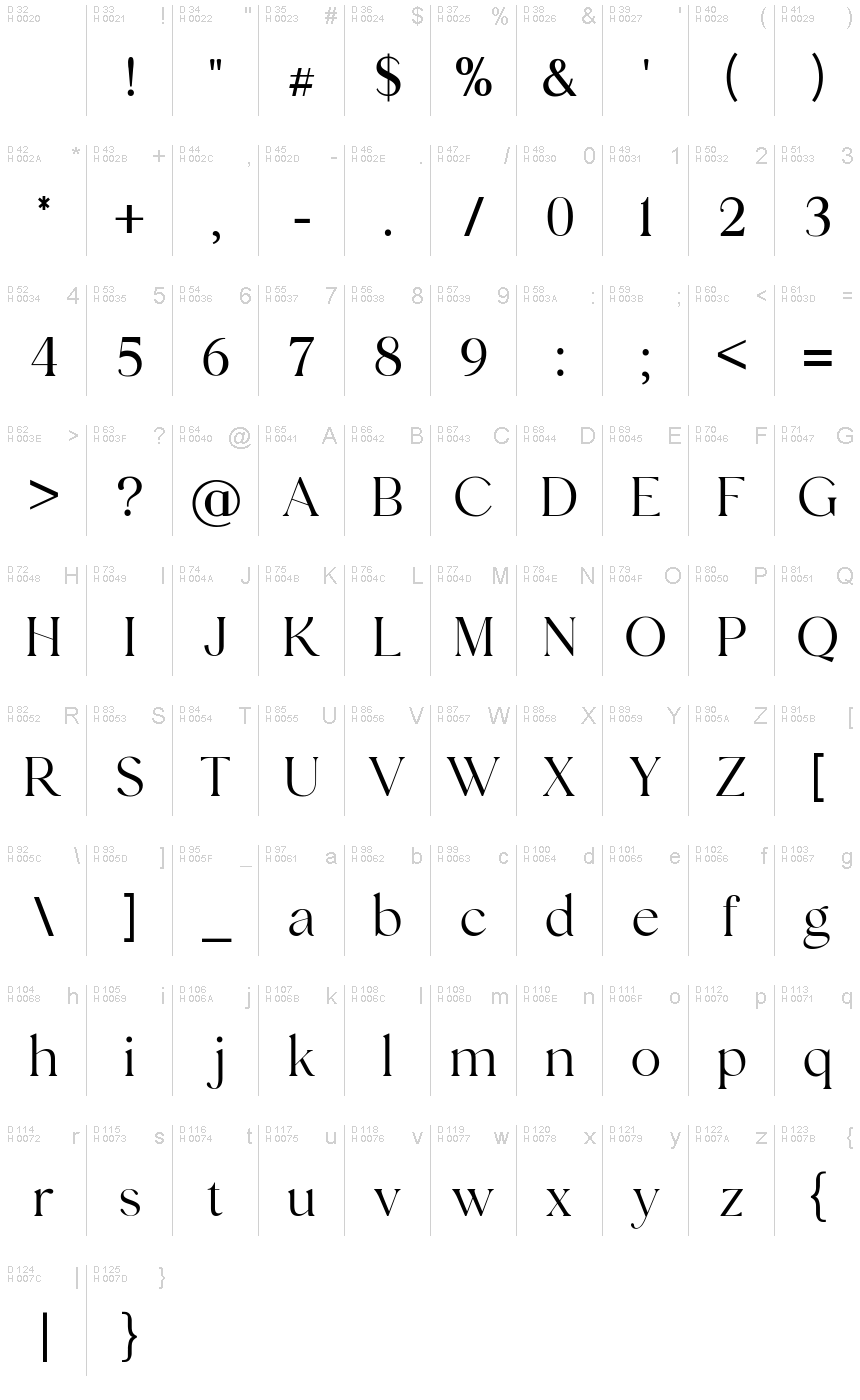
BernadineAleyshia
Bernadine Aleyshia, a captivating serif font crafted by UI Creative, exudes a timeless elegance with its refined strokes and graceful curves. This font's distinctive character emanates a sense of sophistication, inviting the viewer to immerse themselves in its harmonious balance of tradition and modernity. Bernadine Aleyshia's intricate details and subtle variations lend themselves to a range of design applications, from high-end editorial pieces to luxurious branding initiatives.
The versatility of Bernadine Aleyshia makes it a versatile choice for designers seeking to elevate their projects with a touch of refined sophistication. Its legibility and versatility make it a suitable option for body text in literary works, while its elegant flair lends itself beautifully to headline and title treatments in fashion, lifestyle, and creative industries. Bernadine Aleyshia's timeless appeal ensures its ability to capture the essence of a wide array of design concepts, seamlessly integrating into various creative endeavors.